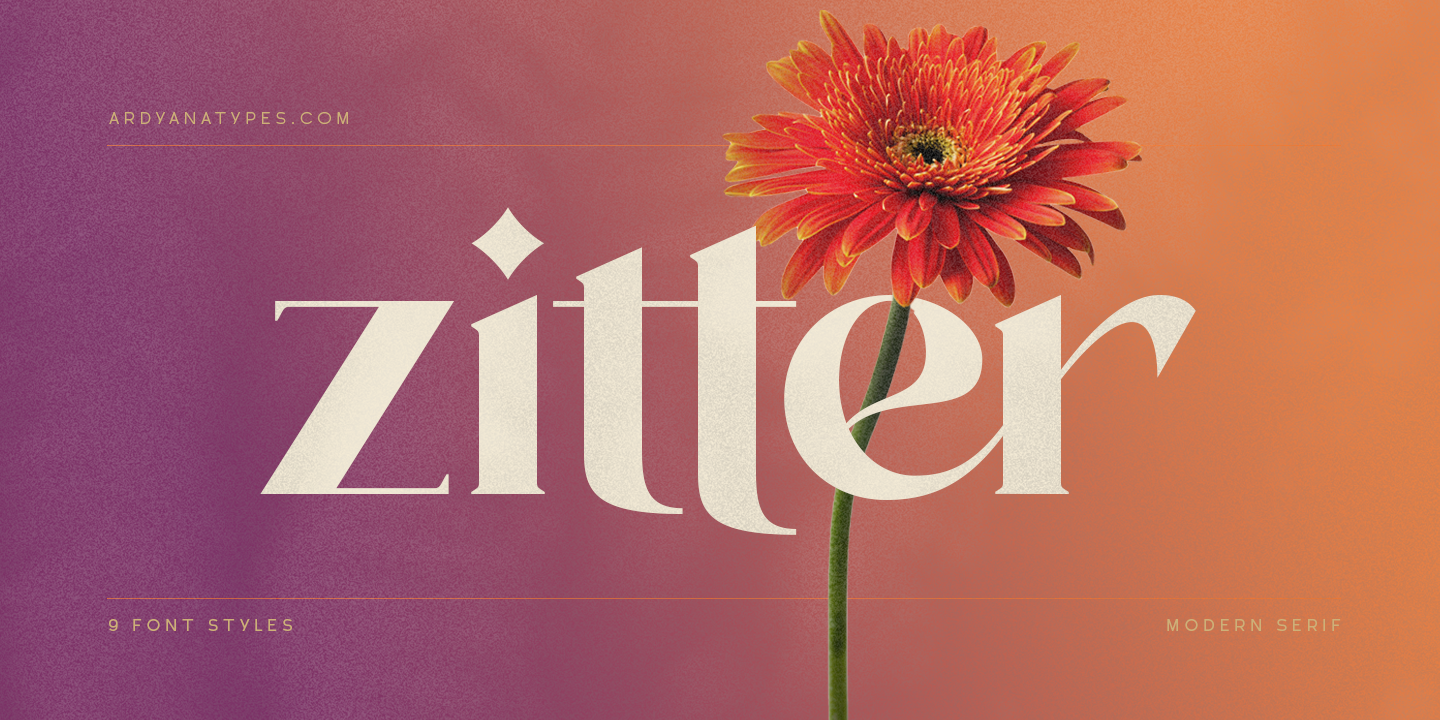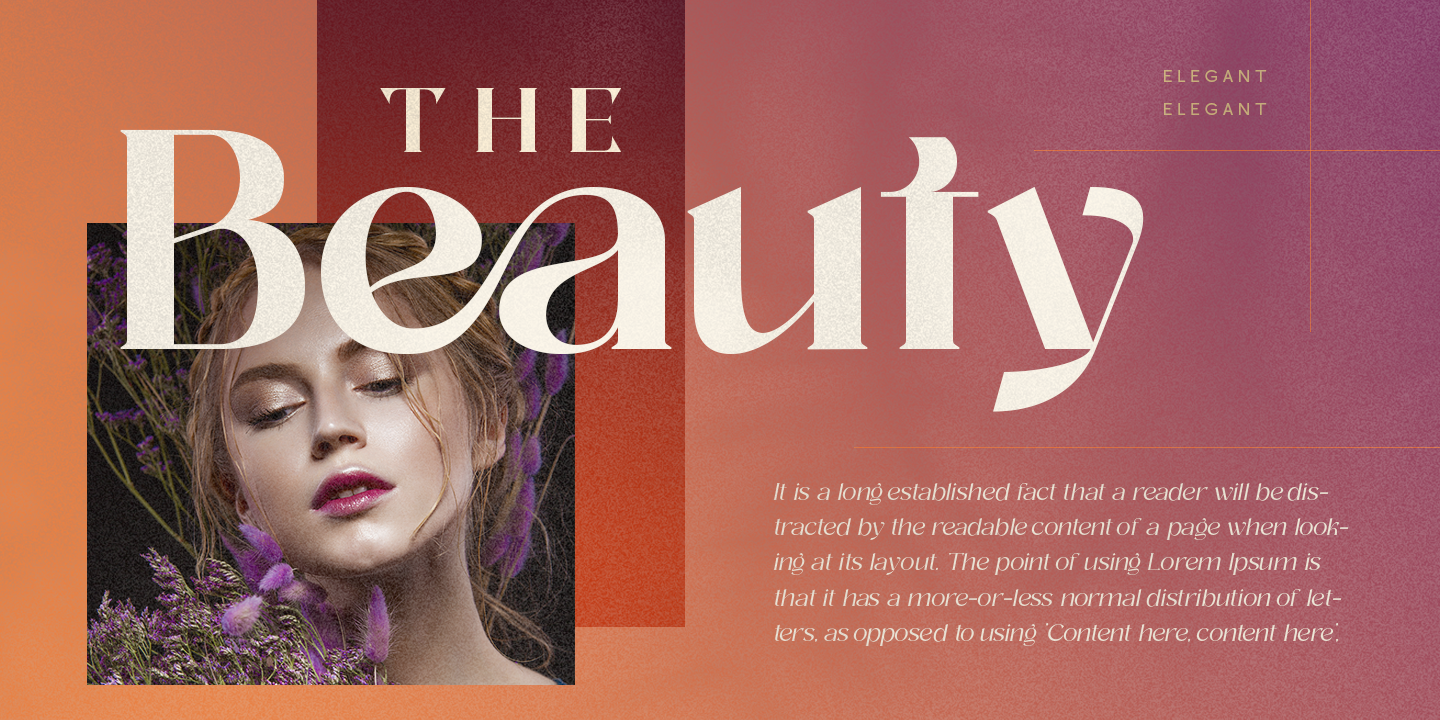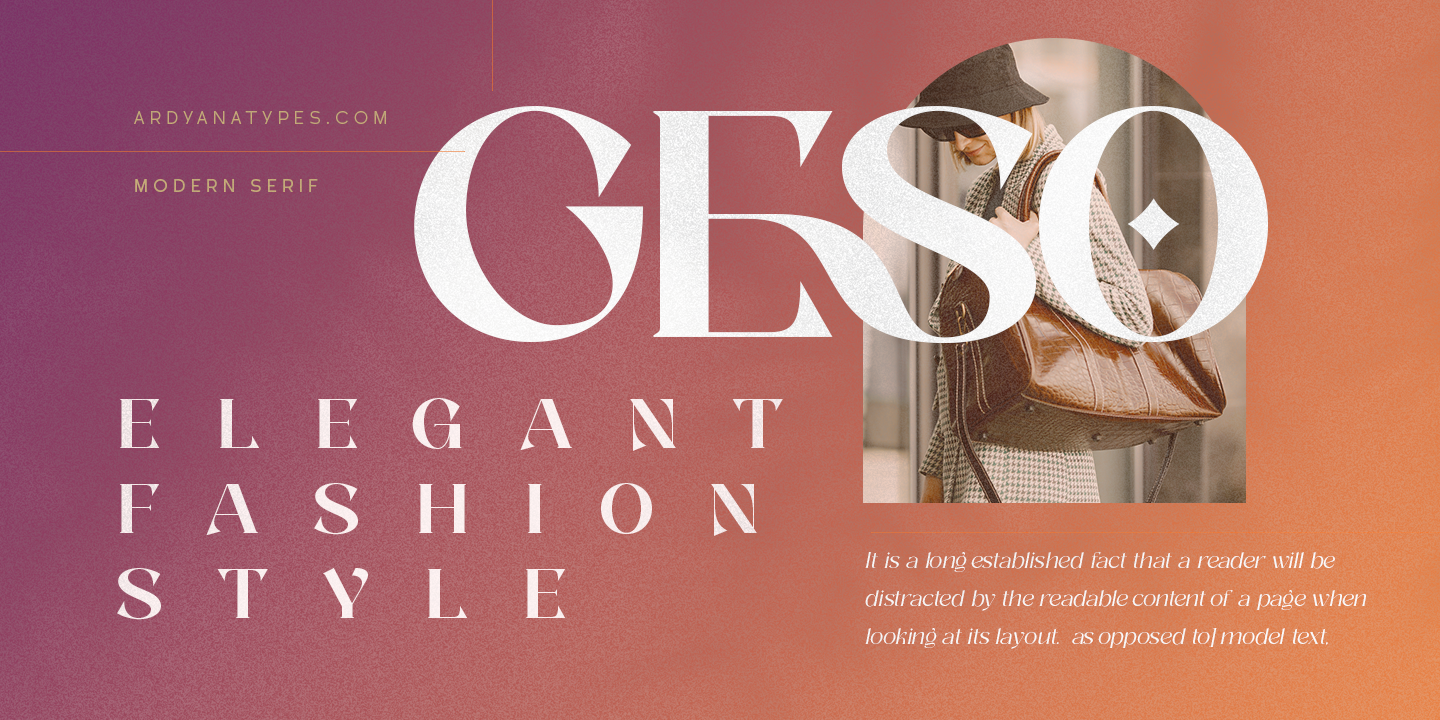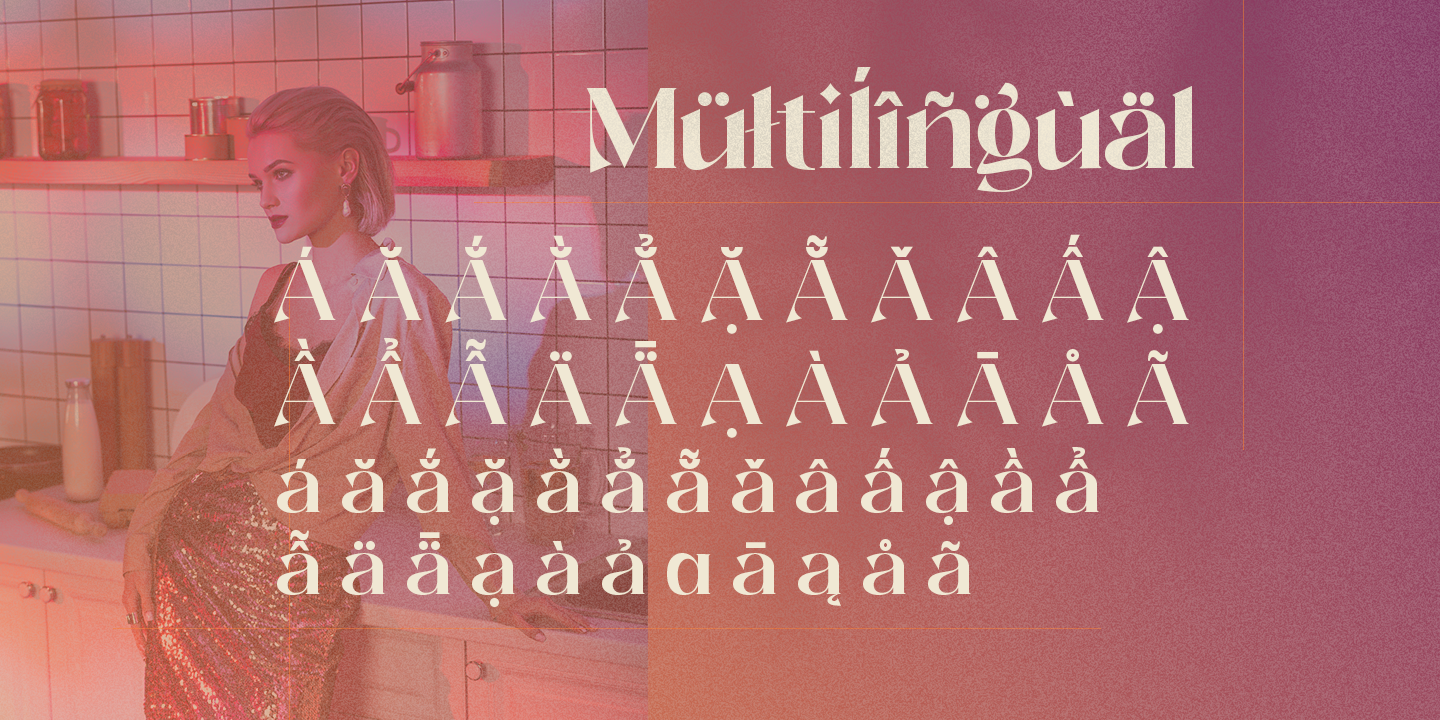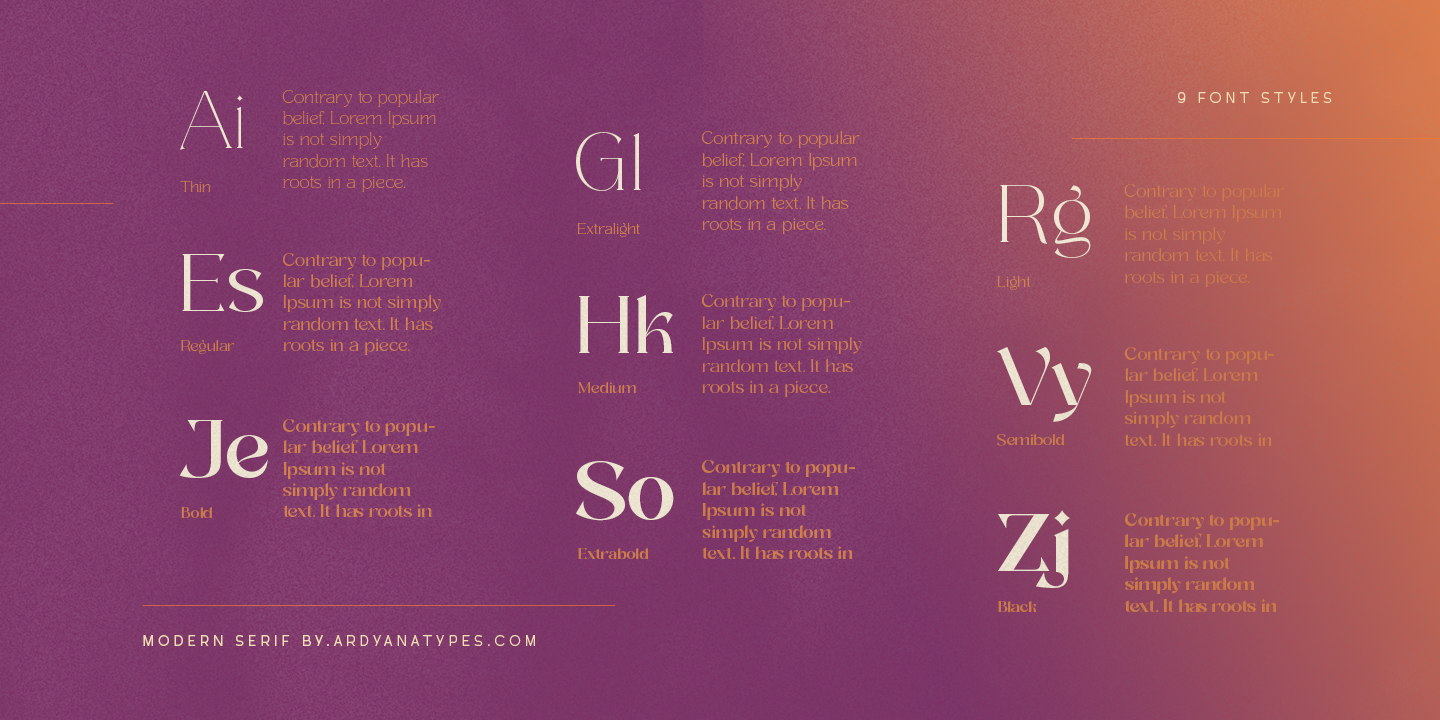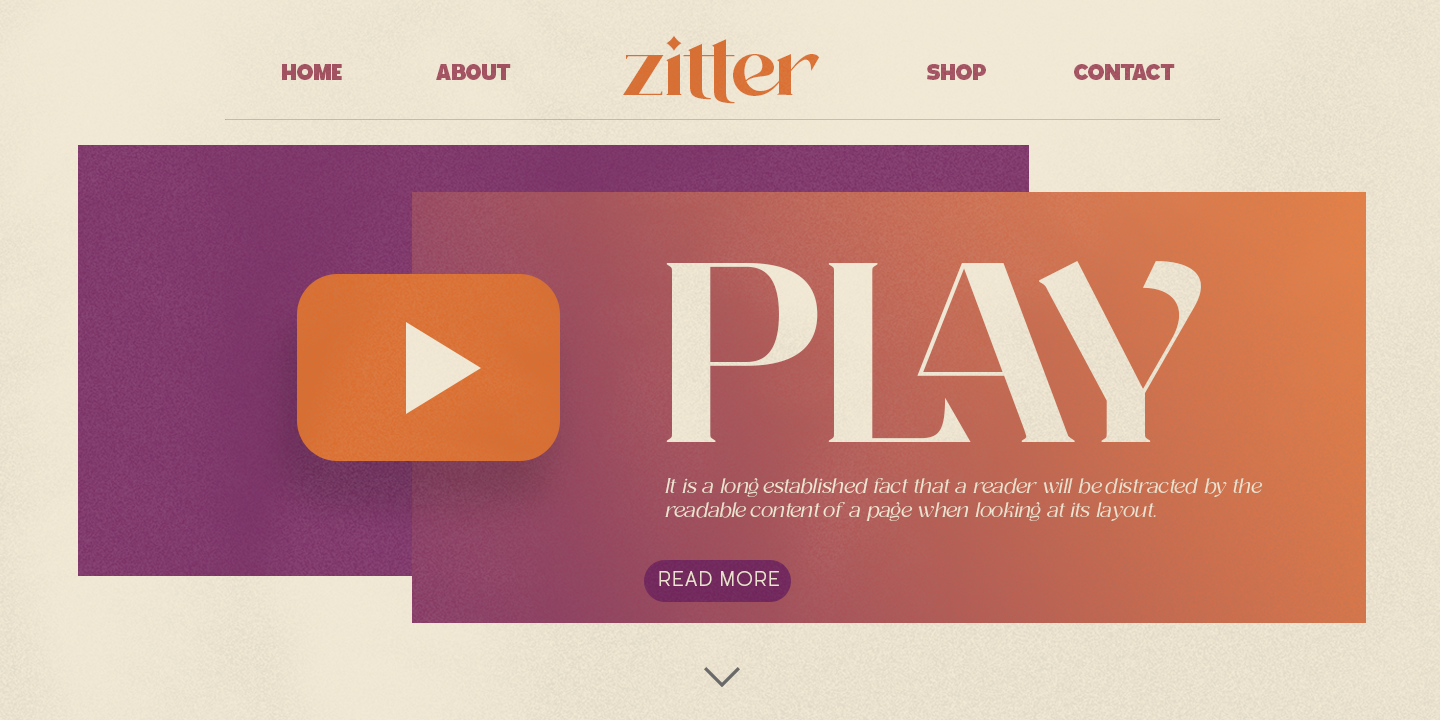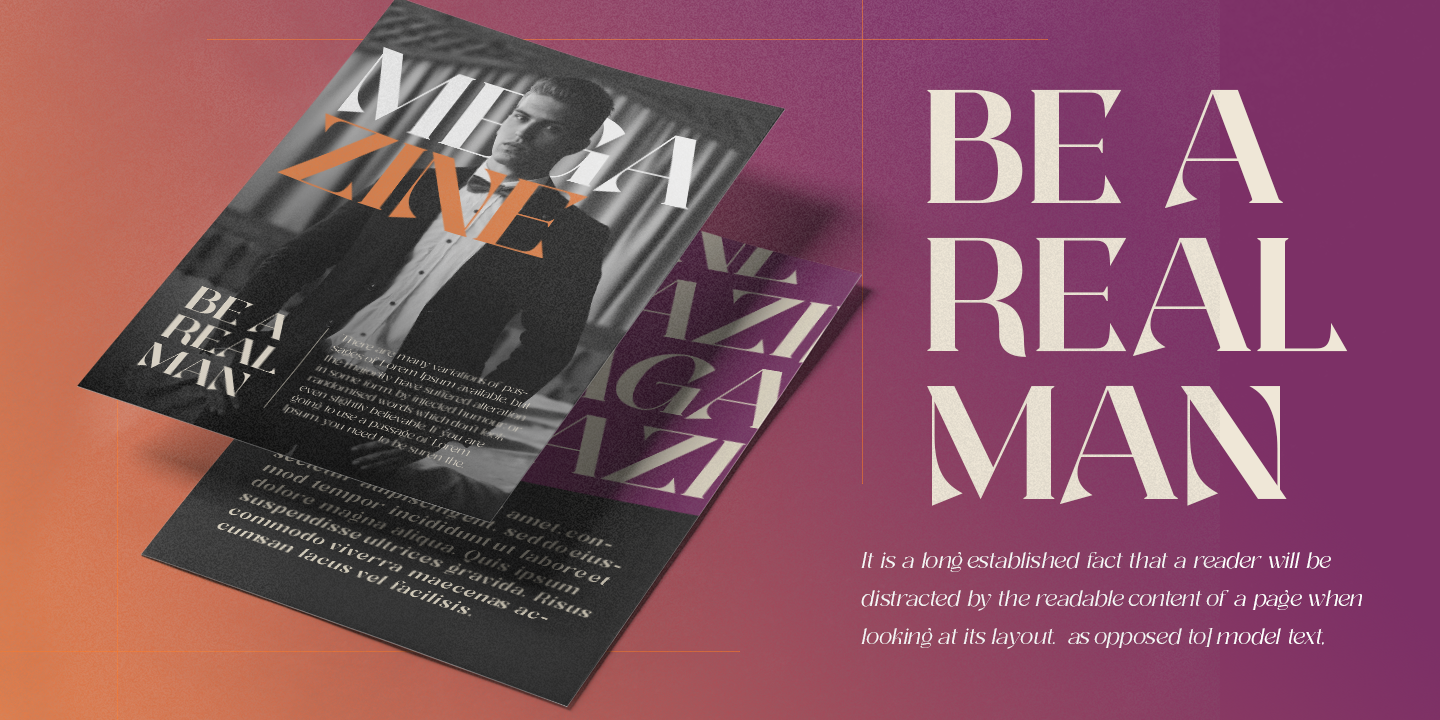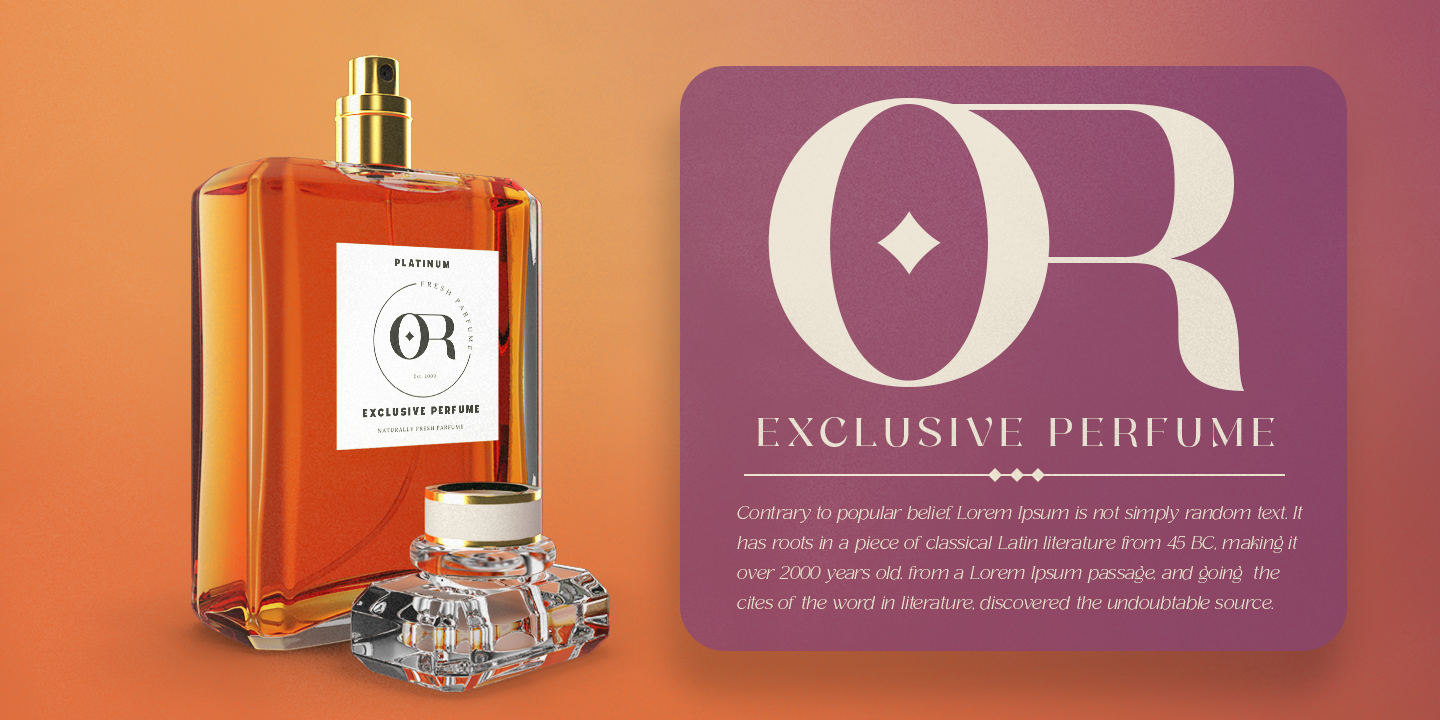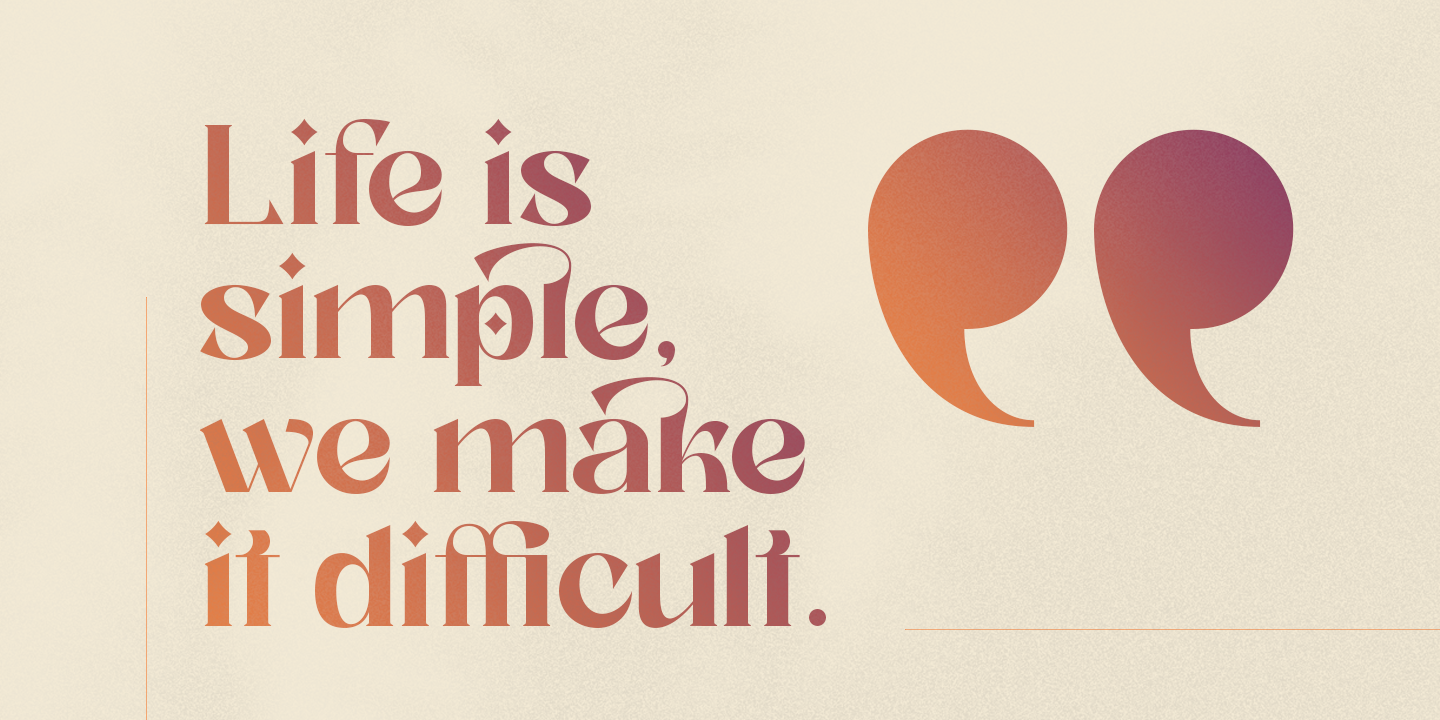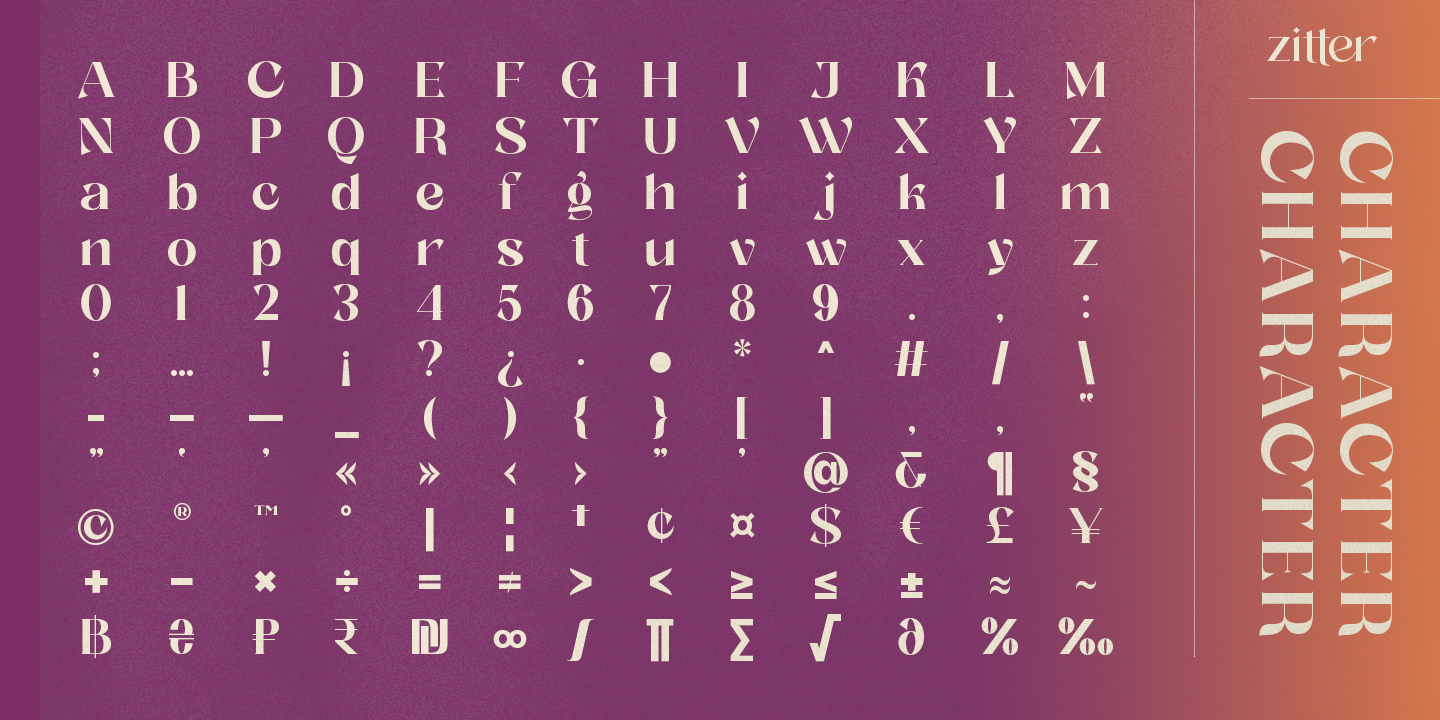
Zitter - Decorative Serif
Zitter Decorative Serif is a serif-style product font that looks luxurious and elegant. This font has many features that will make your designs look more beautiful and elegant. It is very suitable to be used as a type of logo and for branding your brand, and there is still much that you can do with Zitter Decorative Serif. Its unique shape adds a creative impression to it, so it can also use for any fancy, unique, vintage, and elegant themed designs.
• ITI ITI
• coa coa
• ffi ffi
• ffj ffj
• AS AS
• CA CA
• CH CH
• DO DO
• EA EA
• ES ES
• FS FS
• GO GO
• HA HA
• LA LA
• LE LE
• LI LI
• LL LL
• LO LO
• LU LU
• NN NN
• OB OB
• OO OO
• OR OR
• OZ OZ
• RA RA
• RE RE
• RI RI
• RO RO
• RU RU
• VO VO
• WO WO
• ae ae
• ah ah
• am am
• an an
• as as
• co co
• ea ea
• eg eg
• eh eh
• em em
• en en
• er er
• es es
• fj fj
• oh oh
• om om
• on on
• ra ra
• ro ro
• tu tu
• tv tv
• tw tw
• ; ;
• { {
• } }
• = =
• > >
• < <